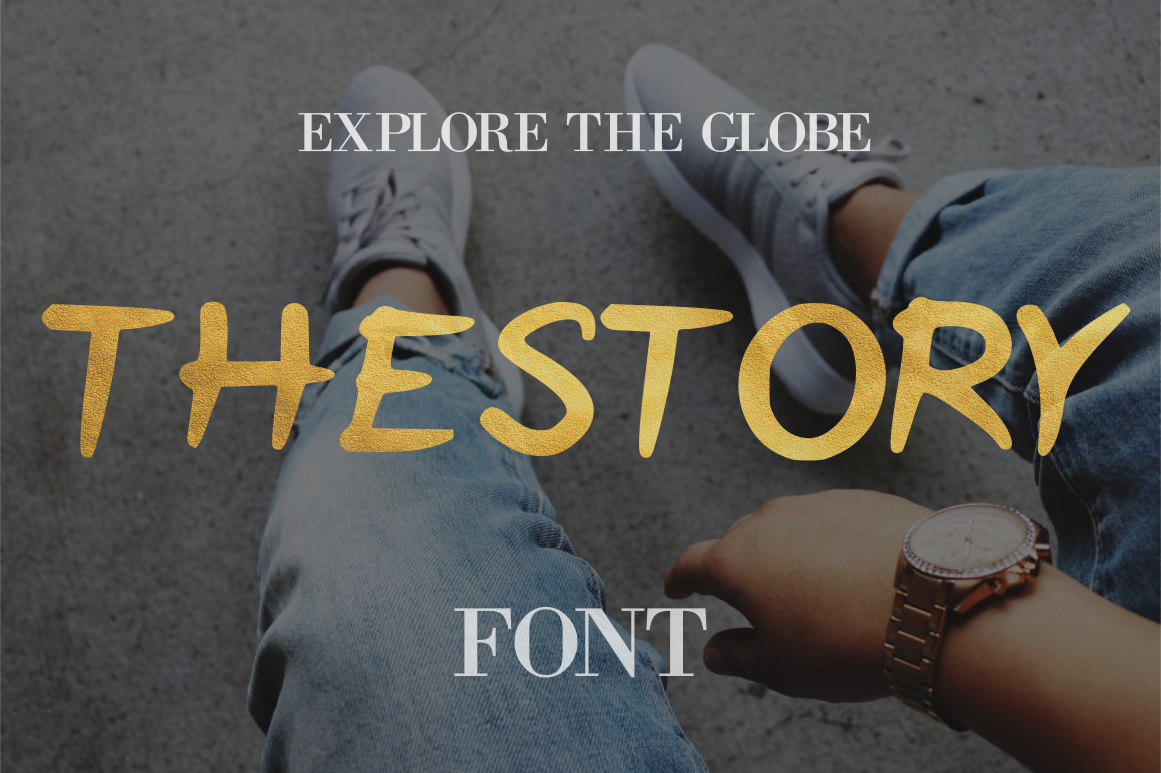
The Story (Story Of The Sea) Font
Description: Here we are with a new handwritten The Story (Story Of The Sea) Font. Created with creativity, fun and imagination. The Story (Story Of The Sea) Font is for any kind of design work. Use it for invitations, logos, greeting cards, lovers letters, t-shirts or any suitable design that you want to create. Included medium and regular version. Have fun with The Story (Story Of The Sea) Font and expand your creativity in all areas of creation.
- uppercase
- lowercase
- numeral
- punctuation
- bonus